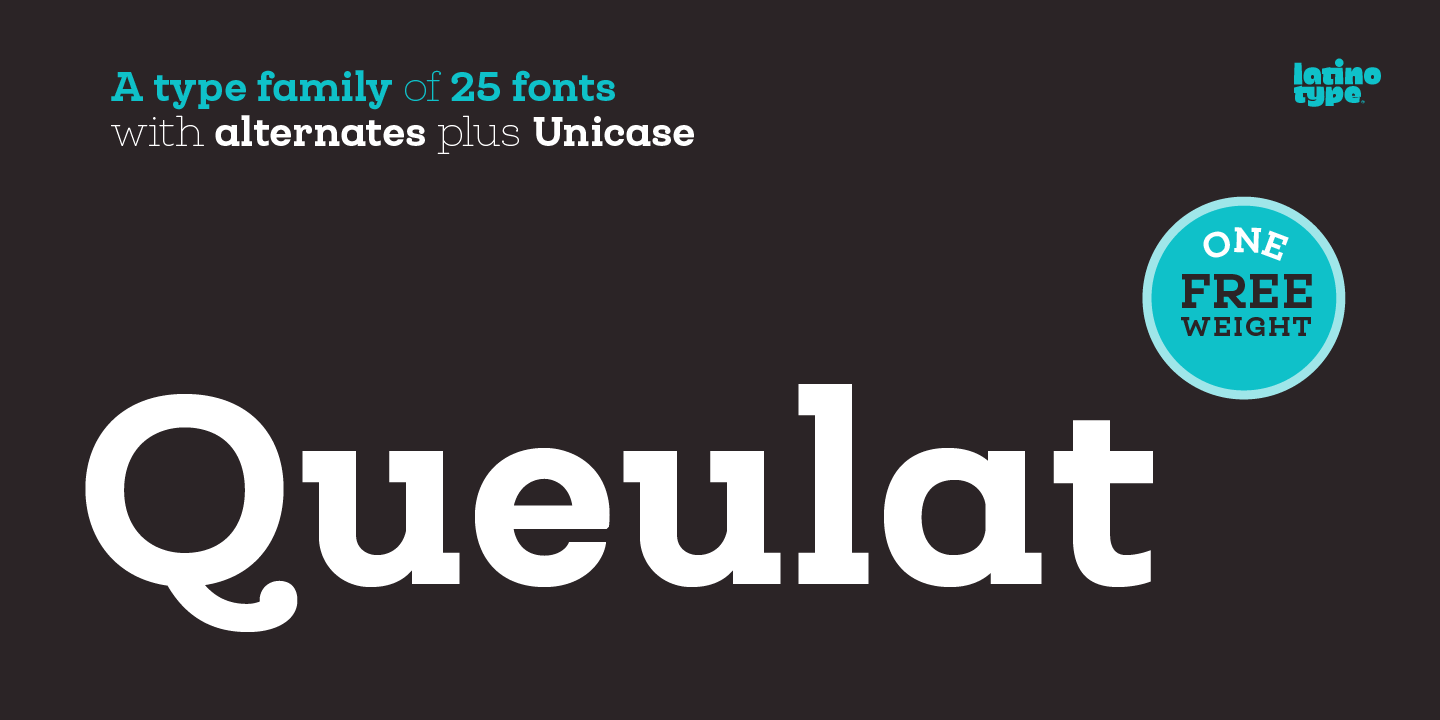
Queulat Font Free Download is a distinctive and stylish typeface inspired by the natural beauty of the Queulat National Park. Its organic shapes and bold strokes give your design a strong yet approachable feel, perfect for branding, posters, outdoor themes, and artistic projects.
With its unique character and excellent readability, Queulat Font Free Download stands out in headlines and display text, adding personality and impact. The font balances creativity with professionalism, making it versatile for various design needs.
Bring a touch of nature and originality to your designs with Queulat Font Free Download. If you want a font that’s both artistic and functional, Queulat is an exceptional choice.